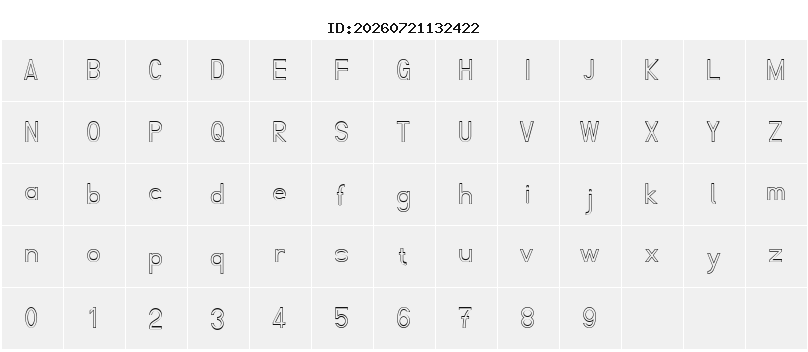
• Font Name: Fibel Nord Kontur
• Full Font Name: Fibel Nord Kontur
• Designer: Peter Wiegel
• Manufacturer: Peter Wioegel
About Fibel Nord Kontur.ttf
Fibel Nord Kontur.ttf is a modern, elegant sans-serif font designed for ultimate readability and visual harmony. Perfect for branding, headlines, web design, and print materials.